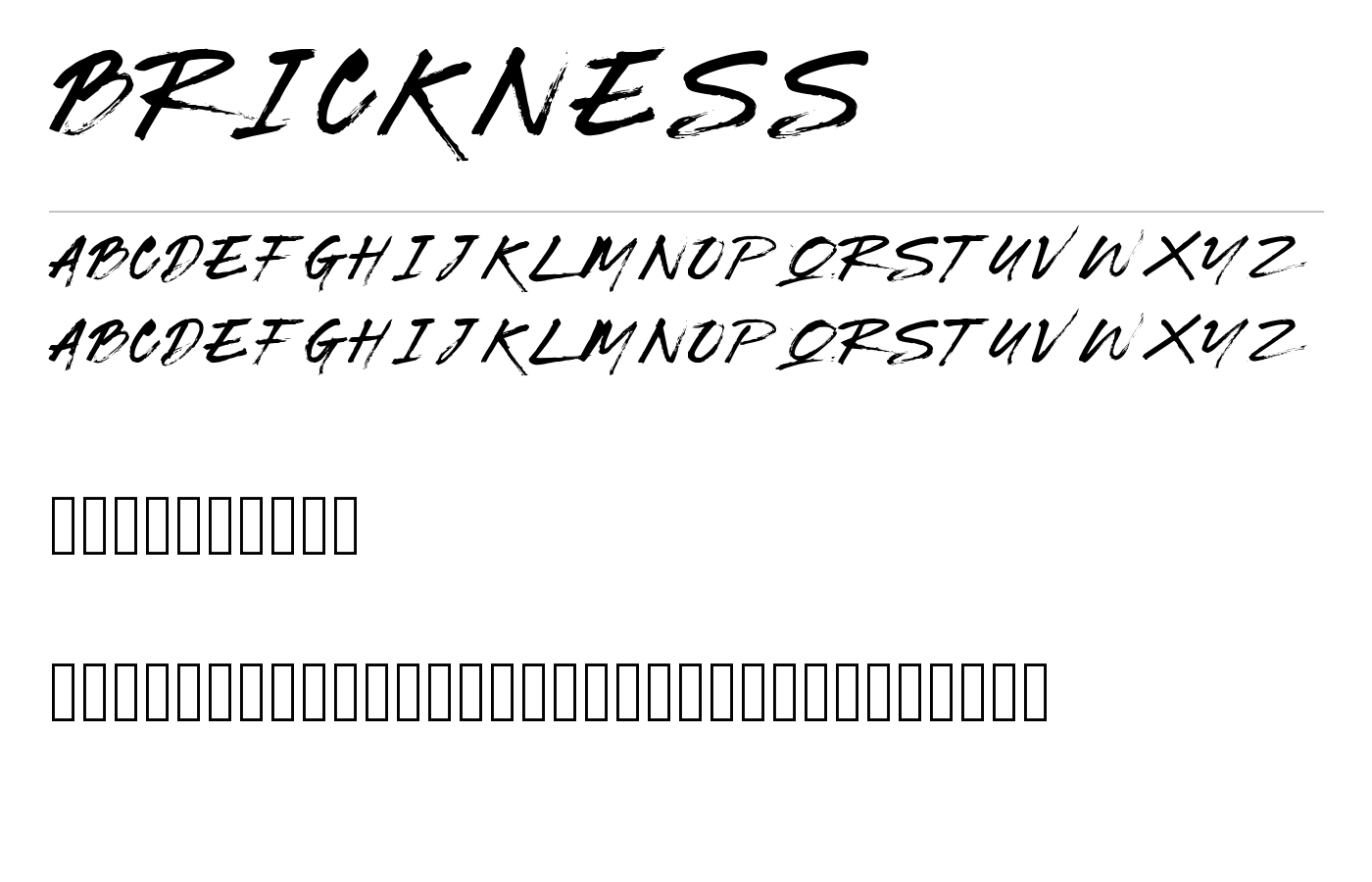
BRICKNESS is a bold and dynamic brush script font that exudes an energetic, hand-painted feel with its rough, textured strokes. Its irregular, slightly condensed letterforms give it a casual yet expressive personality, making it ideal for creative designs that need a personal and lively touch. This font works well in logos, posters, and branding projects that aim to capture attention with a raw, artistic vibe.
BRICKNESS Font